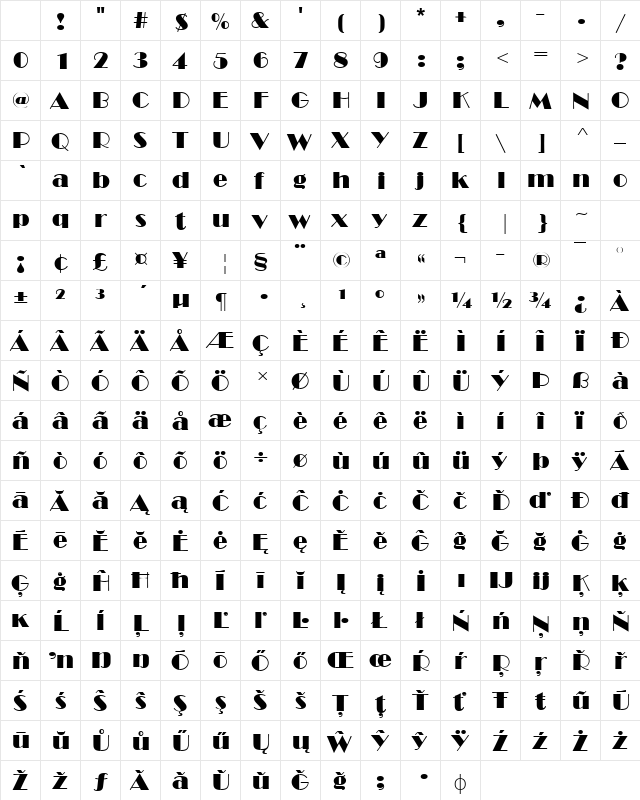
BroadwayD Regular
Design Context for BroadwayD
BroadwayD is a composed and adaptable typeface that performs quietly and consistently across a wide range of design contexts.